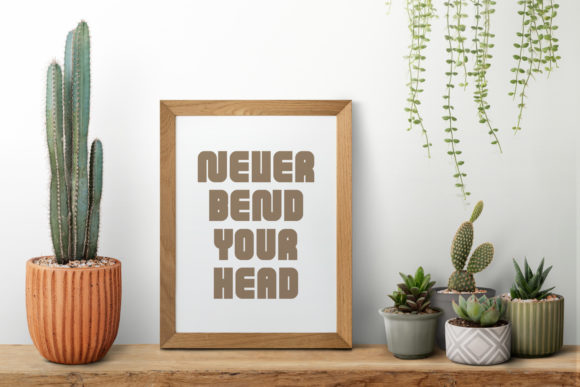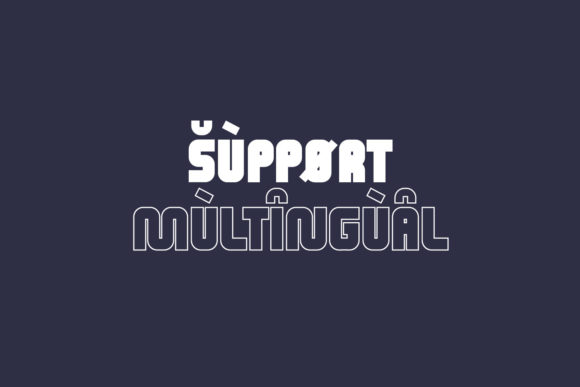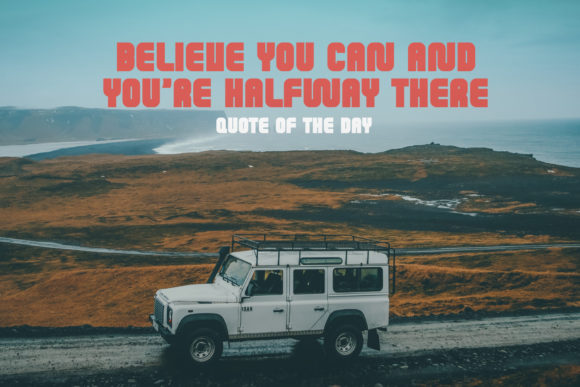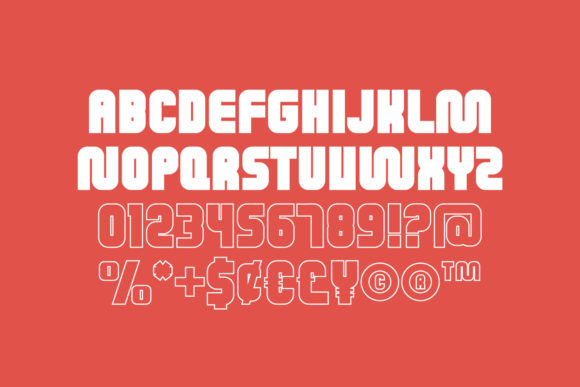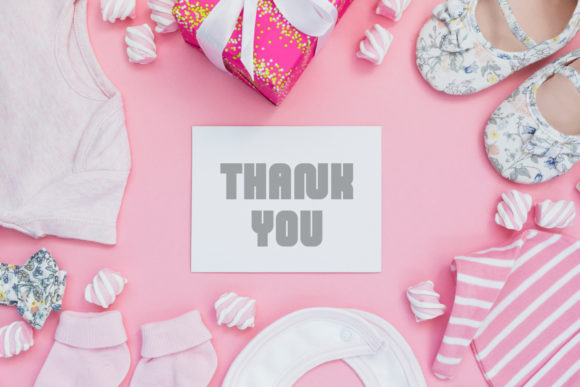
Introduction to Luminaire Font Font
Fonts play a crucial role in design, and the Luminaire Font font is a typeface that brings both character and versatility to any project. Whether you’re working on a branding project, a website, or a print design, the Luminaire Font font offers a unique style that can elevate your work.
Luminaire is a fun and cool looking display font.
Whether youβre using it for crafts, digital design, presentations, or making greeting cards, this font has the potential to become your favorite go-to font, no matter the occasion .
Key Features of Luminaire Font Font
Why Choose Luminaire Font Font?
The Luminaire Font font is more than just a typeface β it’s a design tool that helps you communicate your message with style and clarity. Its unique character set and versatile design make it suitable for a wide range of applications, from elegant invitations to bold headlines.
With its carefully crafted letterforms and balanced proportions, the Luminaire Font font ensures readability and visual appeal across all mediums.
What makes Luminaire Font font special?
The Luminaire Font font stands out with its unique design, exceptional readability, and versatility across various design applications.